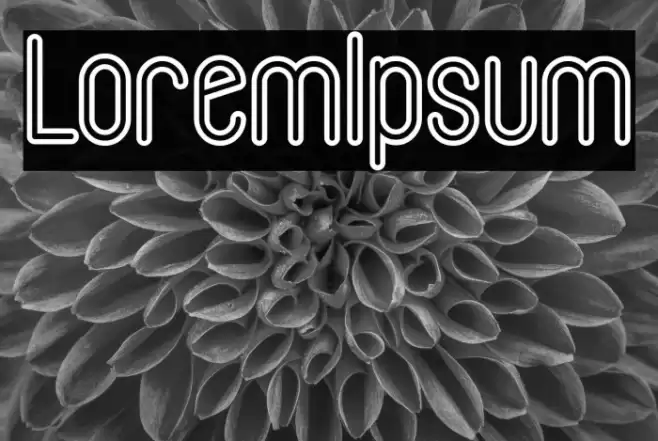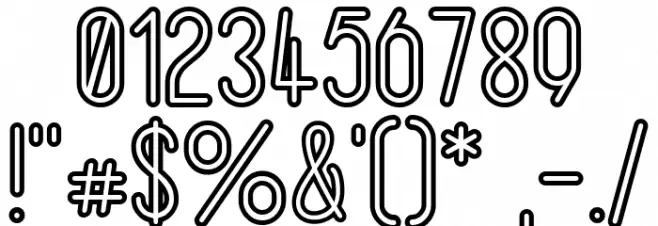
LoremIpsum Font
LoremIpsum Description
This font features a bold, outlined style with a modern and playful aesthetic. The characters are sans-serif, with a uniform stroke width that gives them a clean and structured appearance. The uppercase and lowercase letters maintain a consistent height and width, contributing to a balanced and harmonious look. The numbers and special characters are designed to match the overall style, ensuring a cohesive visual experience. The font's open and airy design makes it highly legible, even at smaller sizes, while the outlined nature adds a unique touch that sets it apart from more traditional fonts.
A bold, outlined sans-serif font with a modern and playful style from Uncategorized fonts.
- Proposed Projects: Ideal for branding, posters, headlines, and any design project that requires a modern and eye-catching font.